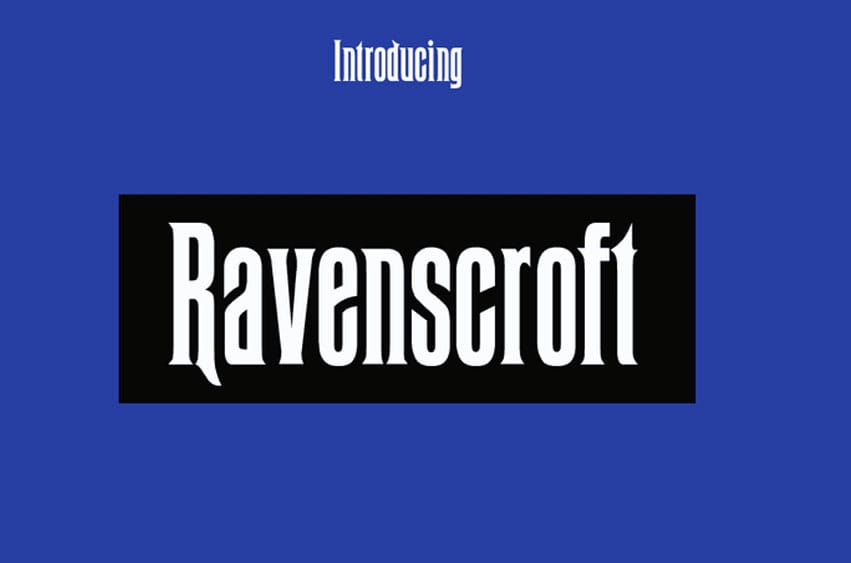
Ravenscroft Font was inspired by letters that are used in Disney’s Haunted Mansion attraction. Kronos created these characters, then we combined them into a font filled with logos, alternate letters and Dingbats.